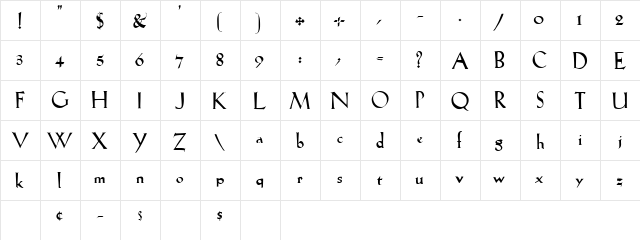
IvyLeague Regular Font Preview
IvyLeague Regular
IvyLeague Regular Font Details
Design Context for IvyLeague Typeface
IvyLeague offers clean, dependable letterforms without strong stylistic allegiance, making it a practical choice for designers who need flexibility.